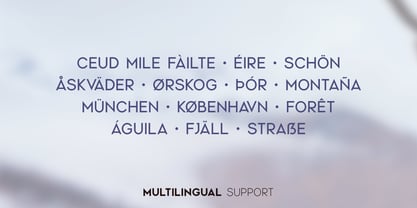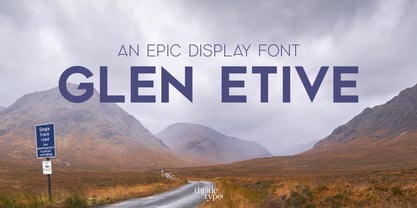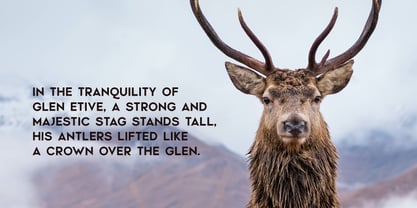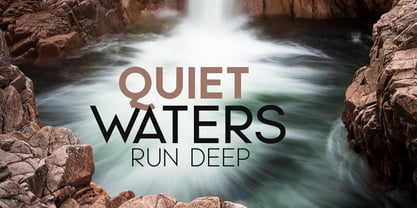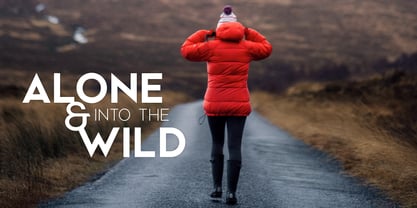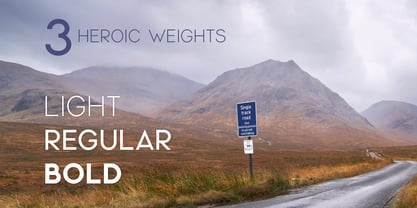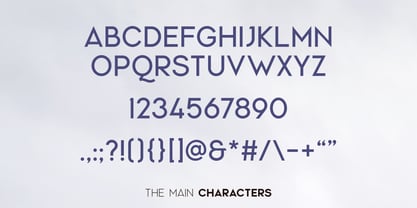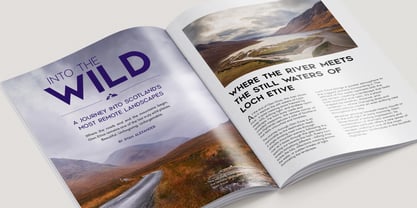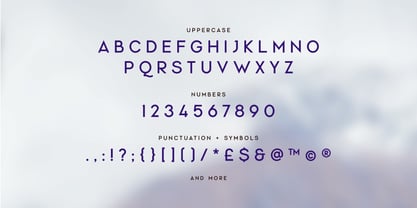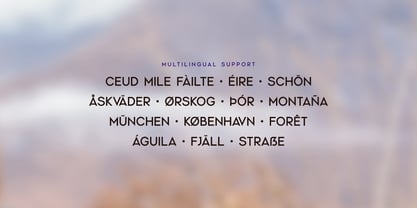
Glen Etive
by Thistle Type
The Glen Etive Font Family was designed by Rae Arnott and published by Thistle Type. Glen Etive contains 3 styles and family package options.
Glen Etive draws inspiration from the wild beauty of the Scottish Highlands. Reflecting the shapes of the mountains, glens, and the River Etive, this uppercase display font will give your designs a bold and eye-catching appearance. Available in Light, Regular, and Bold, it’s perfect for headlines, branding, and projects that need a touch of the dramatic Highland spirit. This font supports Western, Central, and Eastern European languages, including English, French, German, Spanish, Italian, Dutch, Portuguese, Polish, Czech, Danish, Swedish, Slovak and more.
Designers: Rae Arnott
Publisher: Thistle Type
Foundry: Thistle Type